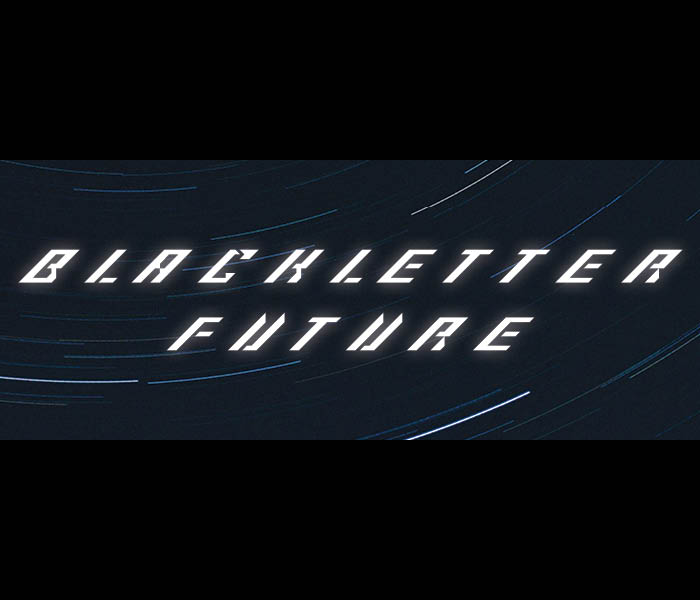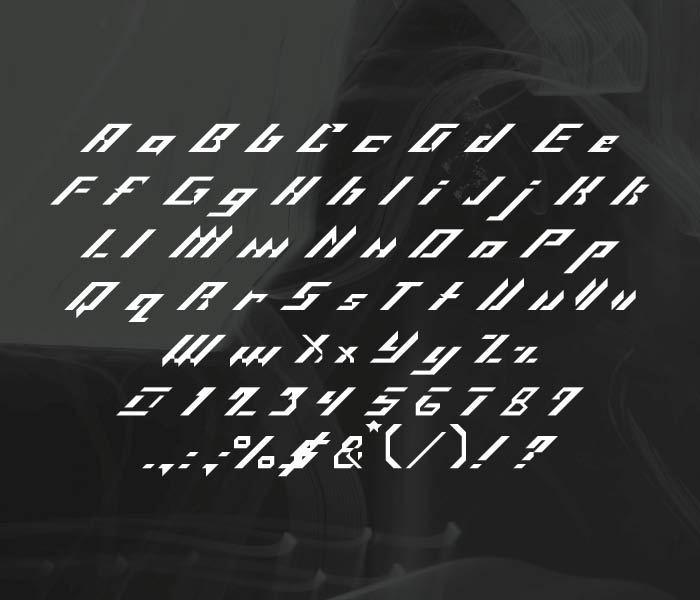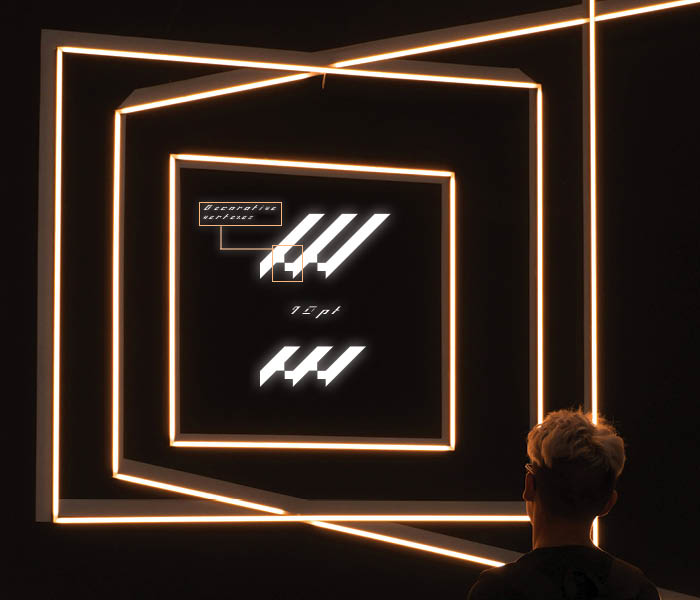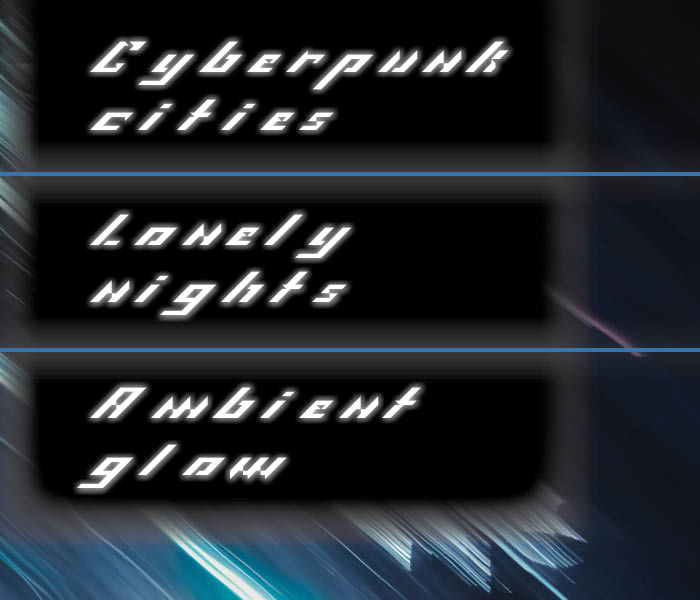
• Blackletter combined with futuristic adaptations, inspired by the FindReplace and Ironwood.  Features sharp, italic letterforms with decorative indents and serifs